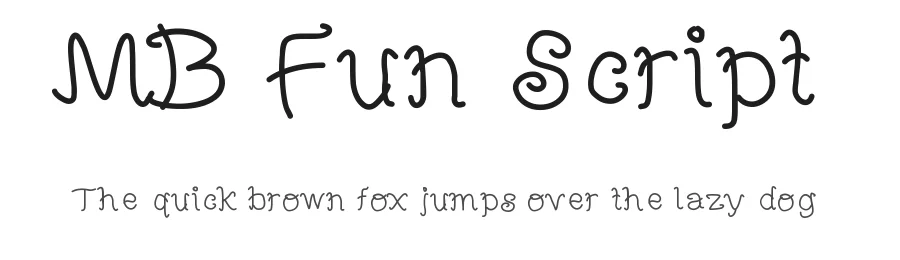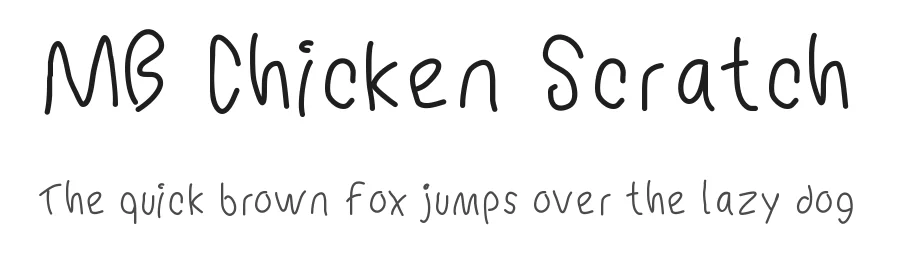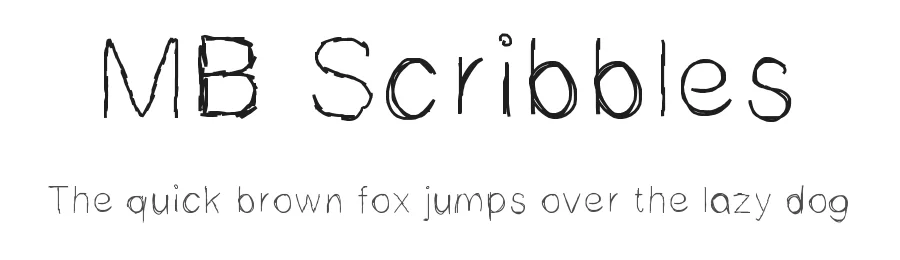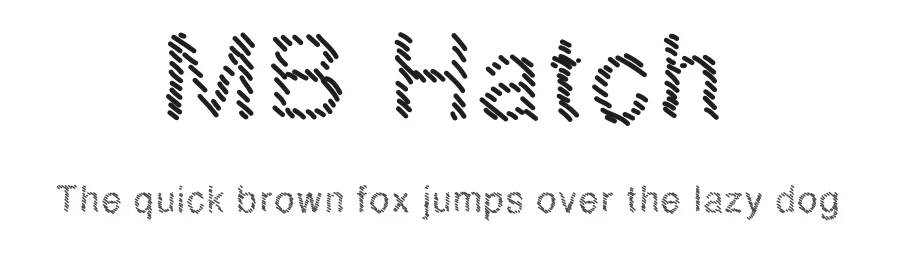
About MBurnette Font
MBurnette is a script & handwritten font designed by Marcus Burnette. It includes 236 glyphs, a regular weight, TTF (TrueType) format, and 209 languages. MBurnette is free to download; check the license details on this page before commercial use. Script & handwritten fonts like MBurnette work best for wedding invitations, greeting cards, signatures, and elegant branding.
MBurnette Font is a script font that shines as a display or heading face. Pair it with a clean sans-serif or serif font for body text β the contrast creates a clear hierarchy while the two styles stay balanced and easy to read.
MBurnette Font
MBurnette Font is a script handwritten typeface by Marcus Burnette, ideal for logos, invitations, branding, and creative projects.